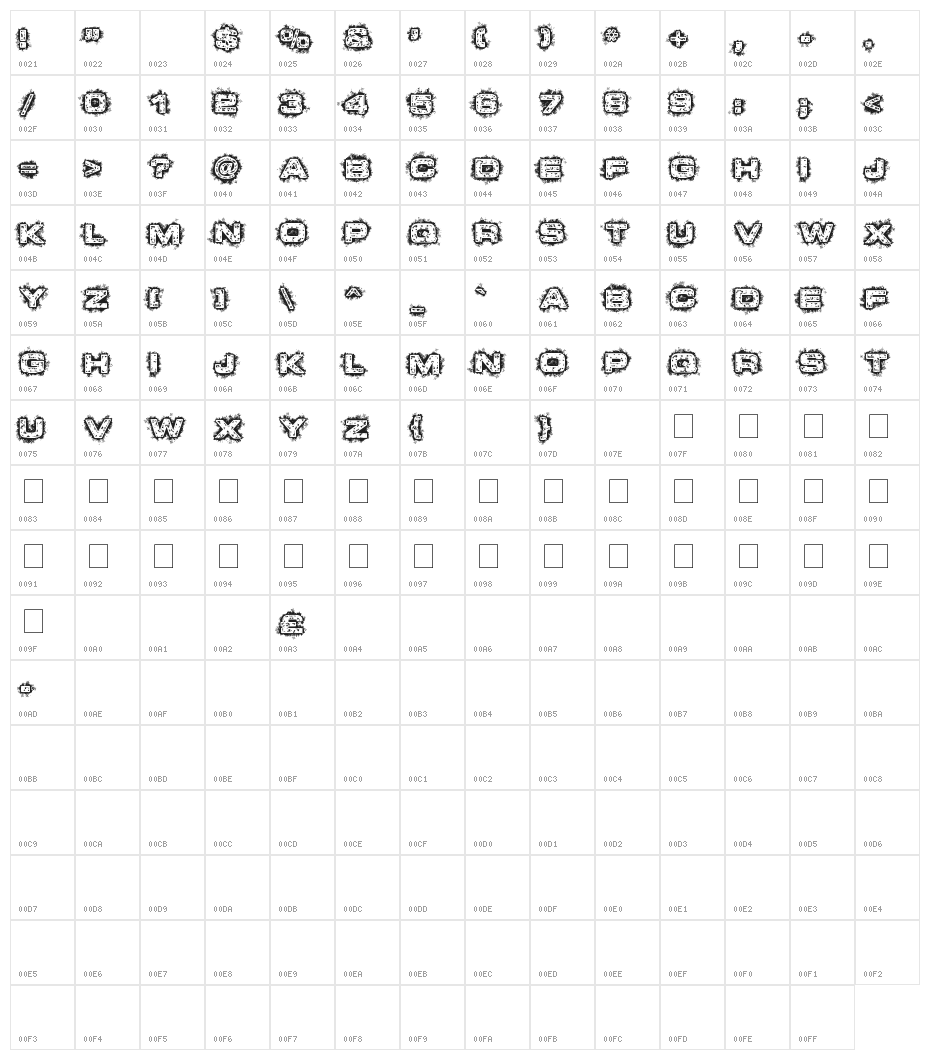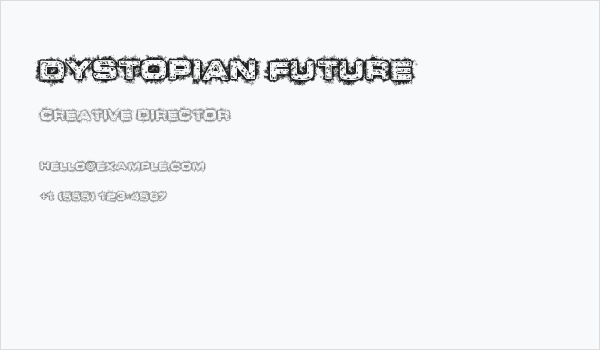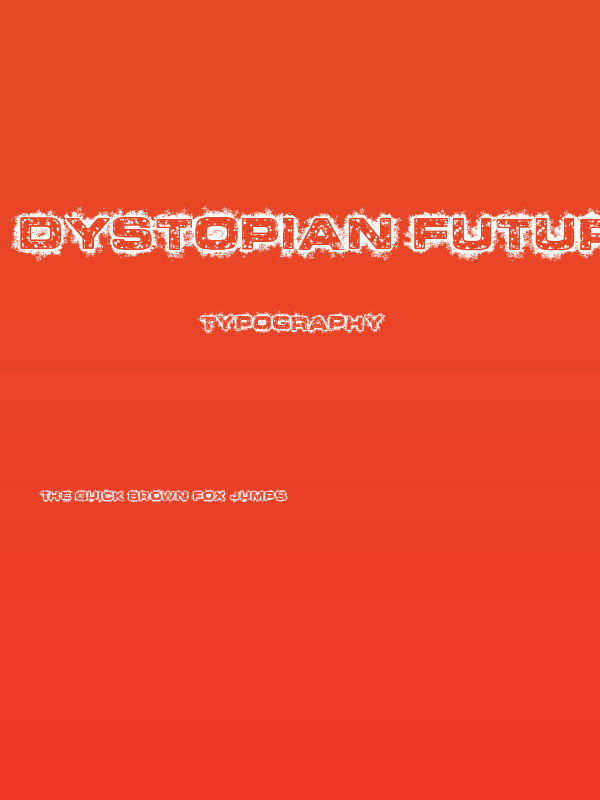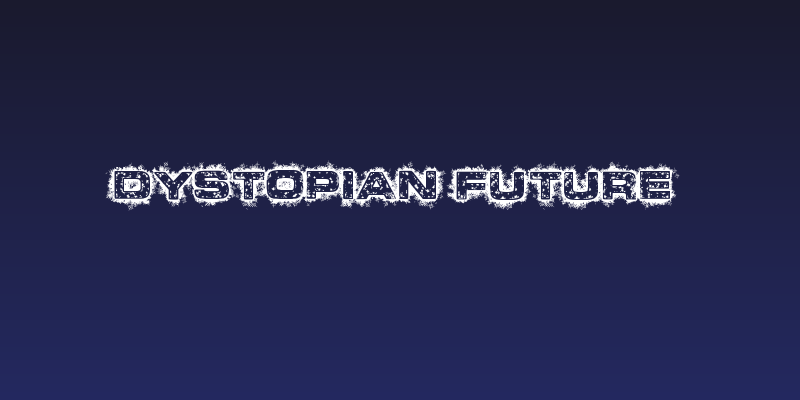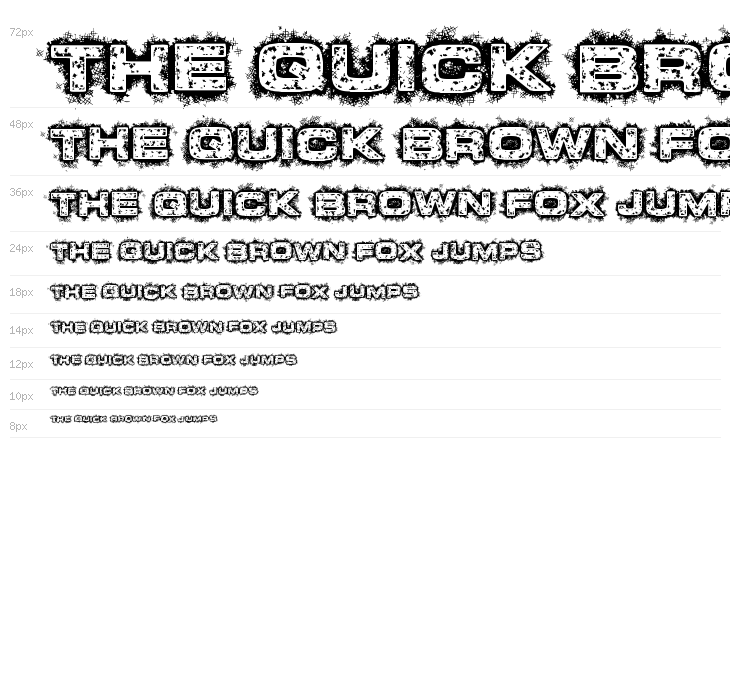
Dystopian Future Font
Dystopian Future Description
This font features a bold, distressed style that evokes a gritty, futuristic aesthetic. Each character is surrounded by a textured, fragmented outline that gives the impression of decay or digital glitching. The uppercase and lowercase letters maintain a consistent weight, with a blocky, geometric structure that enhances the modern, industrial feel. Numbers and special characters are equally stylized, ensuring a cohesive look across all elements. The font's unique appearance makes it ideal for projects that require a strong, impactful visual statement.
Overall StyleFuturistic, Gritty
Proposed ProjectsIdeal for dystopian-themed designs, video game graphics, movie posters, and edgy branding projects.